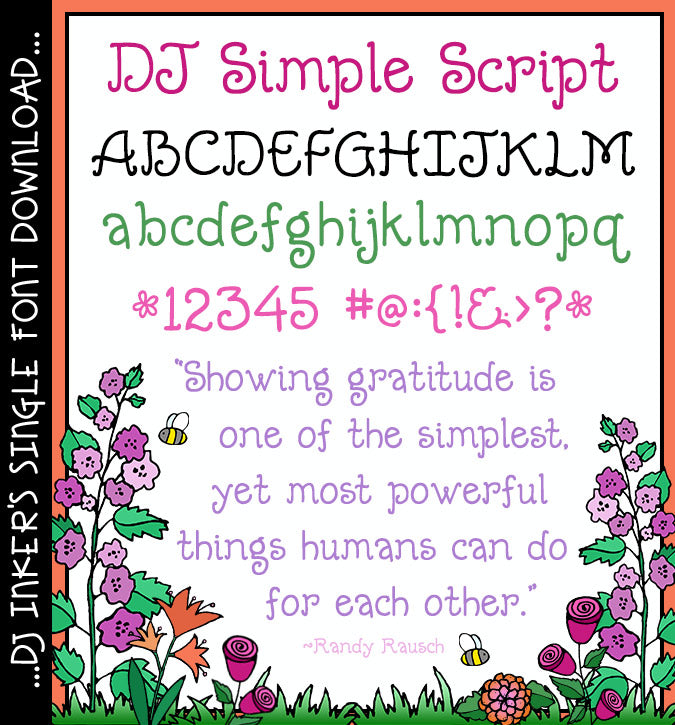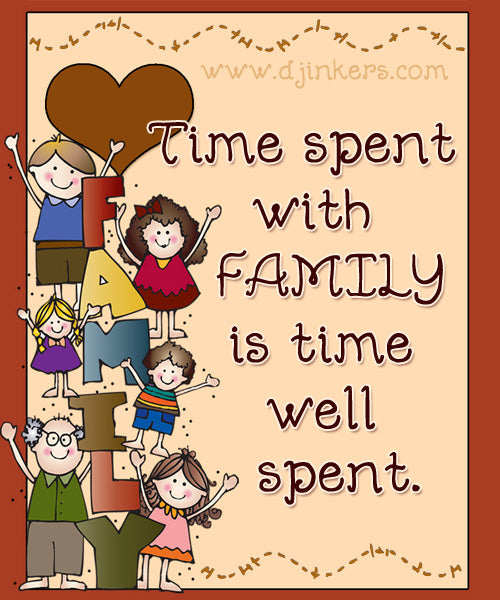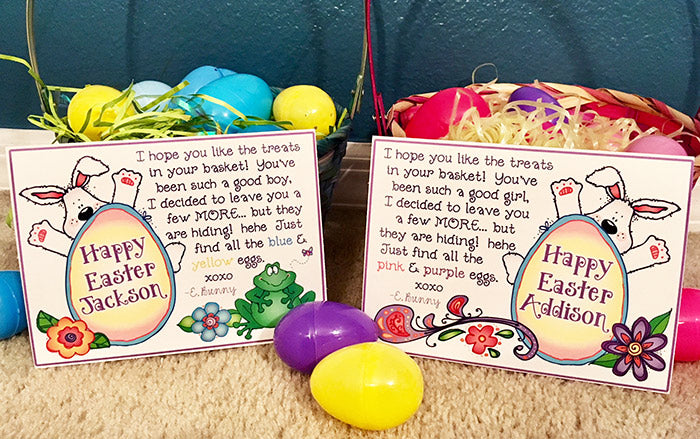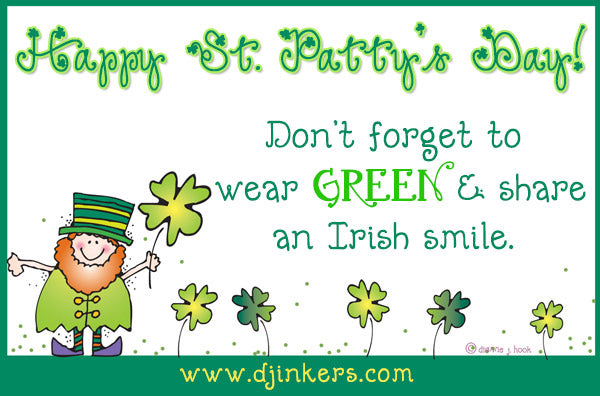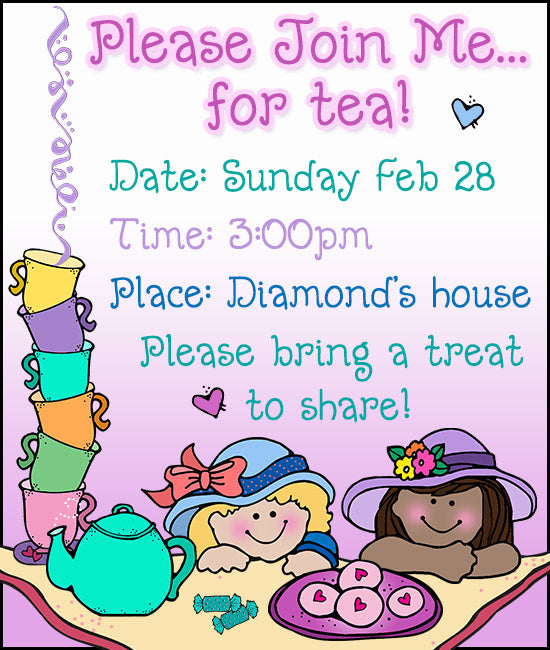
DJ Simple Script Font Download
This sweet and simple font adds that lovely scripted look to your lettering... while still being easy to read. Perfect for special events, certificates, greeting cards & letters, memory books, little girls, tea parties, weddings and more.